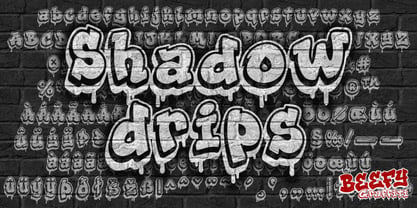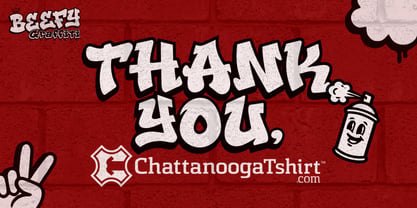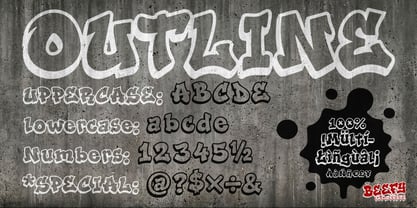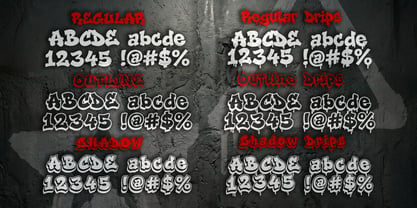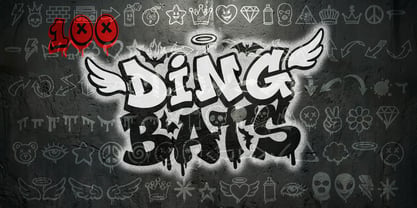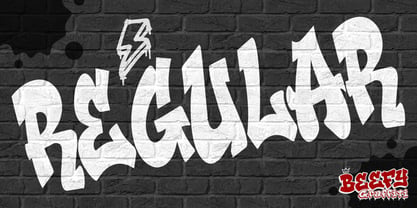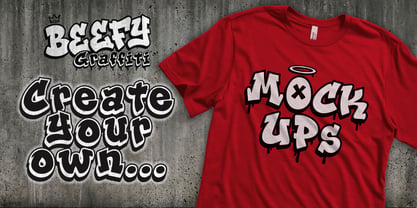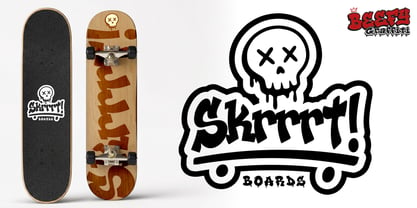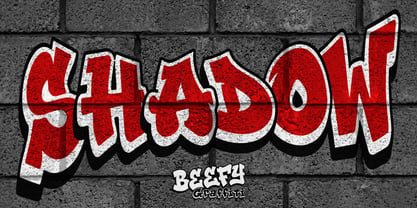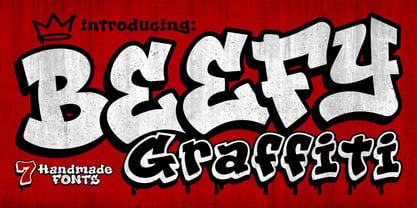
Beefy Graffiti
The Beefy Graffiti Font Family was designed by Benjamin Pinson and published by Chattanooga Tshirt. Beefy Graffiti contains 7 styles and family package options. More about this family
Beefy Graffiti is a bold, handmade display typeface inspired by classic street lettering — expressive, authentic, and designed to be readable where most graffiti fonts fall short. Every letterform was drawn by hand and built for designers who want real graffiti style without sacrificing usability across commercial and creative projects.
The family includes six coordinated styles — Regular, Outline, Outline Shadow, Regular with Drips, Outline with Drips, and Outline Shadow with Drips — all maintaining consistent proportions and visual weight so styles can be mixed freely within a single design. The hand-drawn drip details give each character an authentic spray-paint quality that works at any size.
Beefy Graffiti includes a complete character set with uppercase and lowercase letters, numbers, punctuation, full Latin extended accented characters for multilingual support, currency symbols, and math symbols. The family also includes a custom Graffiti Dingbats symbol set featuring hand-drawn crowns, arrows, lightning bolts, flames, spray cans, stars, skulls, and more — designed specifically to pair with the letterforms for custom logos, name designs, apparel graphics, signage, and branding.
Beefy Graffiti works well alongside other bold urban display and street-style typefaces and pairs naturally with clean sans-serifs for contrast in layouts.
Ideal uses include apparel graphics, streetwear branding, music and entertainment design, social media content, signage, logos, packaging, and any project that calls for bold urban typography with authentic graffiti character.